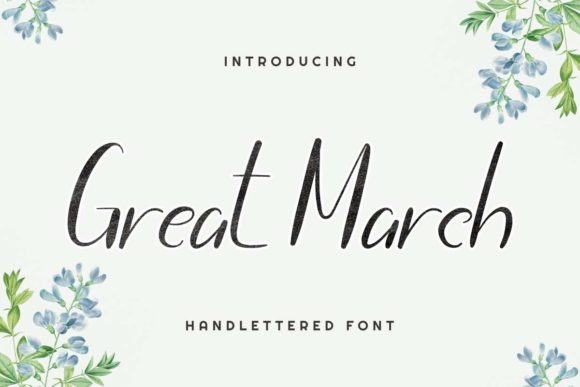
Unleash your creativity with Great March, a font that captivates the essence of handwritten elegance. Its cursive strokes, reminiscent of a gentle breeze, bring a touch of charm and grace to any project. Whether you're crafting heartfelt letters, designing eye-catching posters, or creating personalized merchandise, Great March will transform your words into works of art.
Immerse yourself in endless possibilities with Great March's versatility. This remarkable font flourishes in a myriad of settings, from the delicate lines of wedding invitations to the bold statements of T-shirts and social media graphics. Let your imagination run wild as you explore the boundless opportunities Great March presents.
Elevate your designs with Great March's enchanting personality. Its sweet and romantic allure adds a touch of magic to every creation. Picture your words dancing across the page, carrying a message of love, joy, and celebration. Great March will make your designs shine with a radiant glow that captures hearts and leaves a lasting impression.
Don't settle for ordinary fonts that blend into the background. Embrace the captivating essence of Great March and watch your projects come alive with vibrant energy. Its unique script style commands attention, ensuring your messages stand out and make a statement. Prepare to be amazed as Great March transforms your creative endeavors into masterpieces that leave an unforgettable impact.